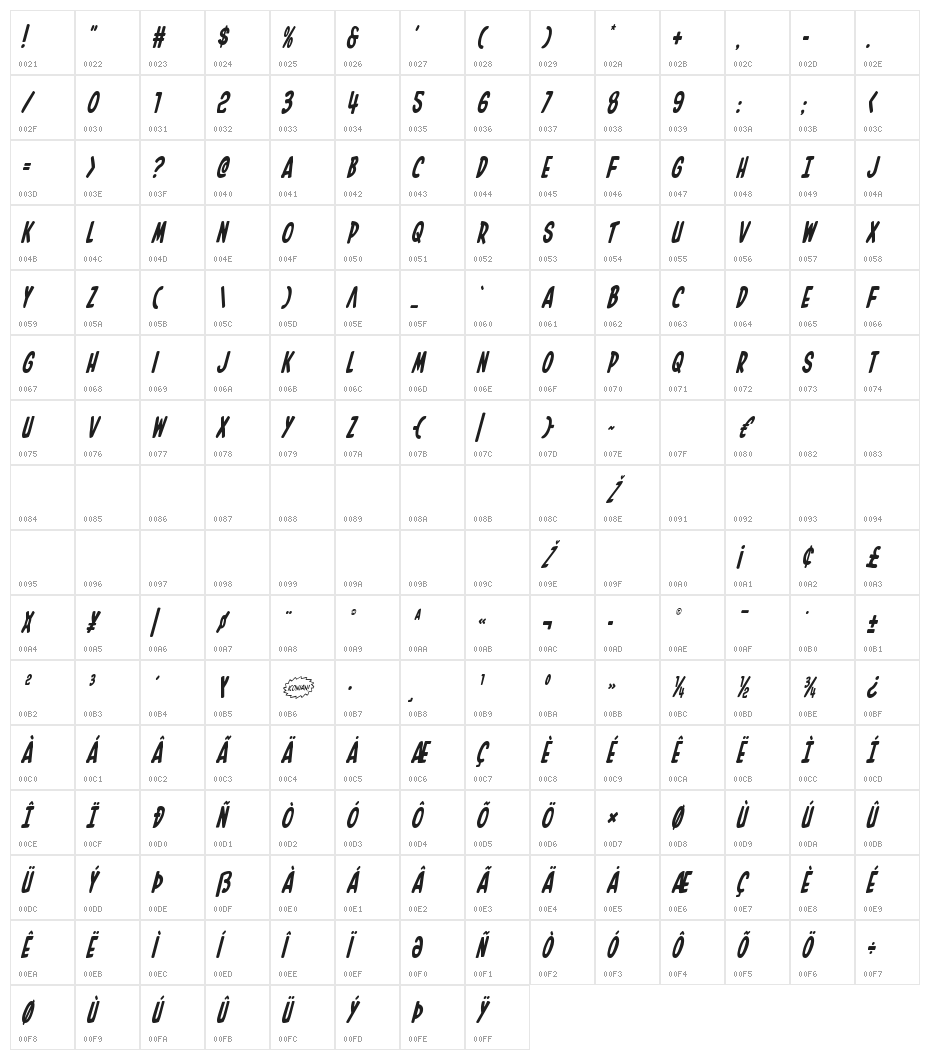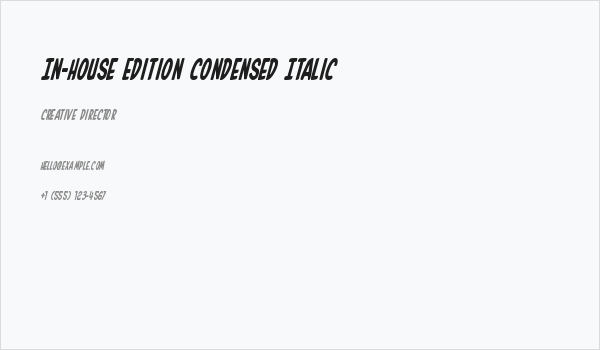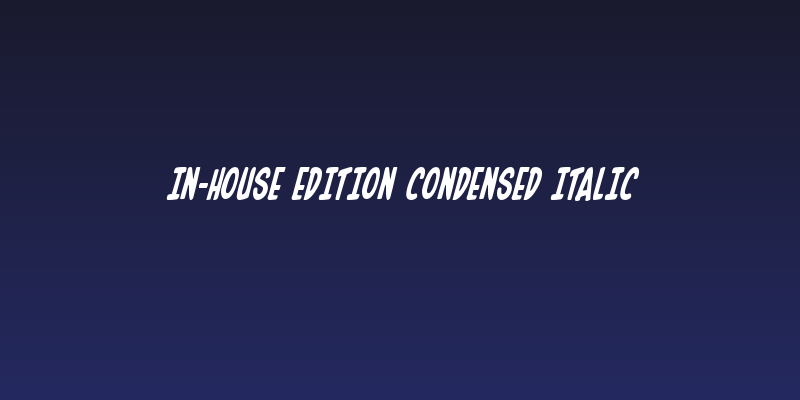
In-House Edition Condensed Italic Font
In-House Edition Condensed Italic Description
This font features a bold and dynamic style with a condensed and italicized form. The letters are closely spaced, giving it a compact appearance. The strokes are thick and consistent, providing a strong visual impact. The slanted design adds a sense of motion and energy, making it suitable for attention-grabbing headlines or titles. The uppercase and lowercase letters maintain a uniform style, while the numerals and special characters are designed to match the overall aesthetic. This font is ideal for projects that require a bold and modern look.
| Proposed Projects | Ideal for headlines, posters, branding, and advertising materials that require a bold and energetic look. |